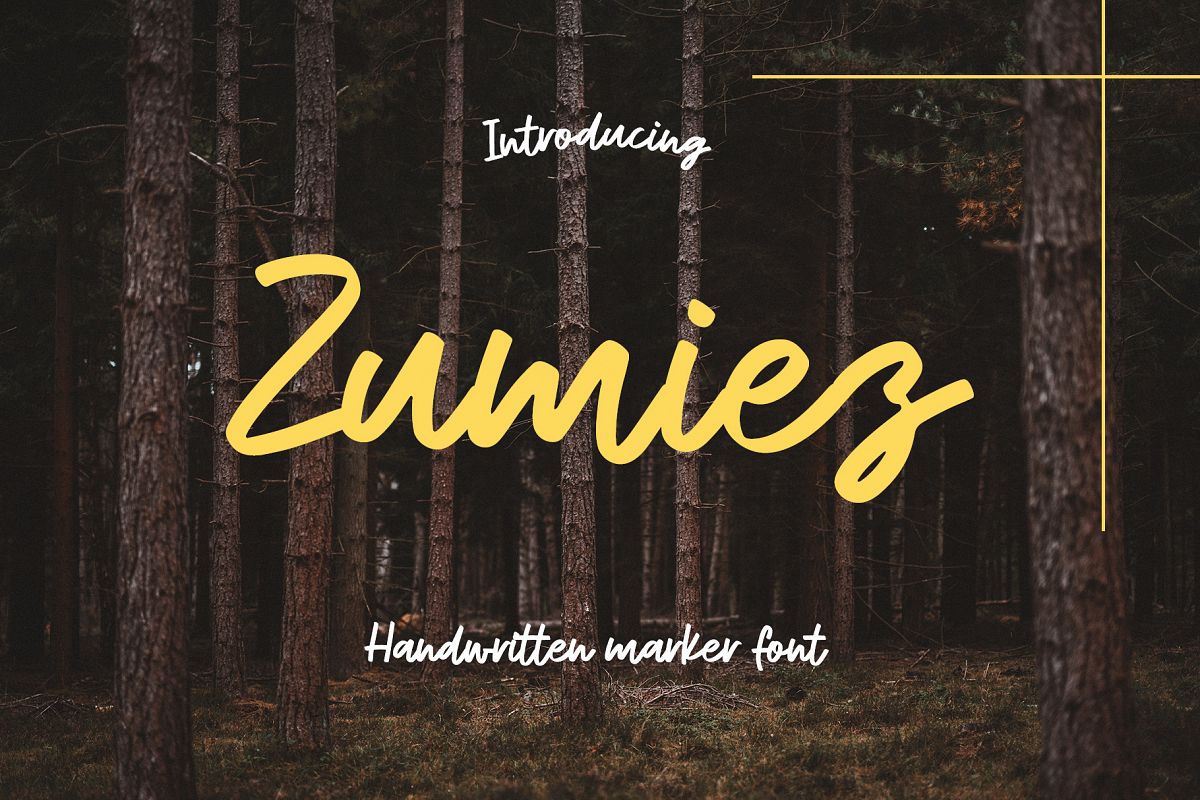
Zumiez handwritten font
Zumiez includes full set of lovely uppercase and lowercase letters, multilingual symbols, numerals and punctuation. This is so perfect for invitations, monograms etc
• Support ALL European Languages